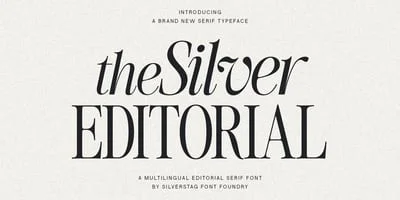
The Silver Editorial Font
The Silver Editorial Font is perfect for luxury magazine layouts, high-end editorial designs, premium publishing projects, sophisticated newspaper headlines, elegant book typography, upscale fashion magazines, prestigious literary publications, refined journal covers, exclusive newsletter designs, and distinguished academic publications that require sophisticated editorial excellence and timeless readability.
This font is exciting because it embodies the pinnacle of editorial sophistication with meticulously crafted letterforms that reflect the highest standards of publishing excellence and journalistic integrity found in premium publications. The Silver Editorial Font features refined serifs and elegant proportions that create exceptional reading comfort while projecting the authority and prestige associated with distinguished editorial content.
The Silver Editorial Font family includes Regular, Bold, Light, Medium, Italic, Condensed, Display, and Caption versions, plus editorial symbols, publishing marks, typographic ornaments, and professional punctuation sets that enhance the sophisticated publishing aesthetic and provide comprehensive solutions for high-end editorial and publishing applications.
For prestigious editorial and publishing projects, The Silver Editorial Font delivers unmatched sophistication and editorial authority. The font's refined letterforms and publishing heritage make it perfect for magazines, newspapers, and publishing houses seeking to communicate credibility, excellence, and editorial distinction. Its elegant design appeals to discerning readers who expect premium content presentation and sophisticated typography. The character set includes specialized editorial marks and publishing symbols that meet professional industry standards. Professional designers appreciate its exceptional readability in long-form content and its ability to convey both editorial authority and aesthetic refinement across magazine layouts, book typography, and premium publishing materials, making it essential for publications that want to project sophistication, credibility, and the highest standards of editorial excellence in today's competitive media landscape.